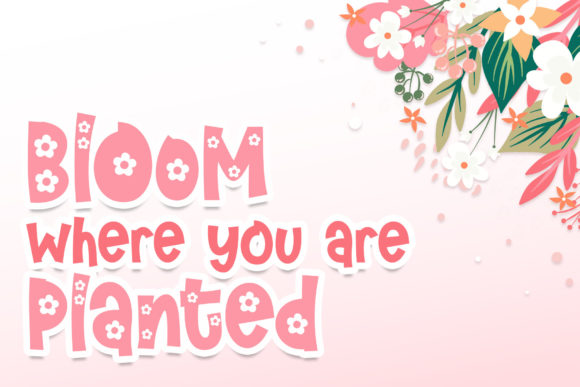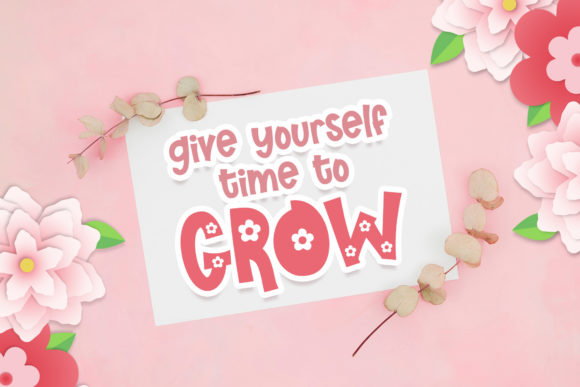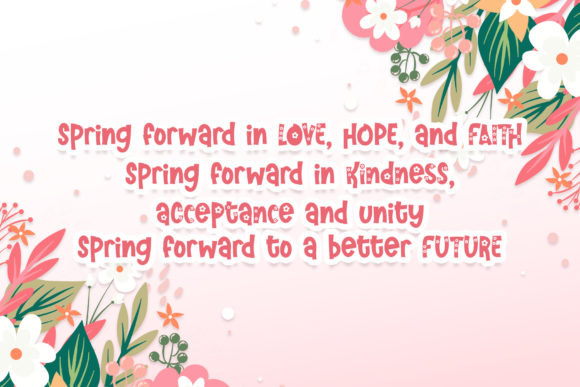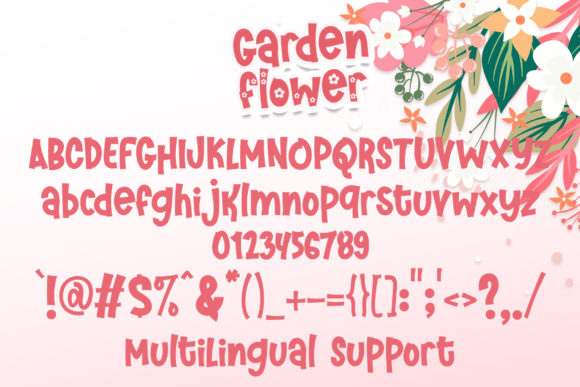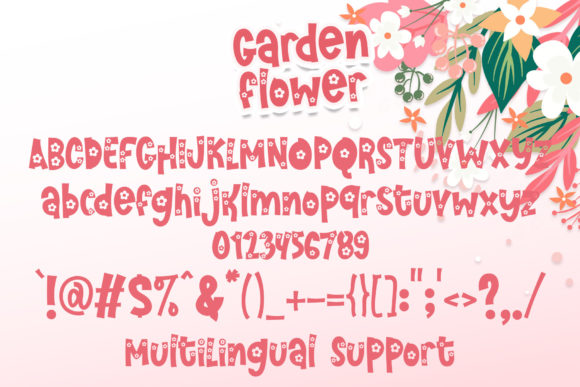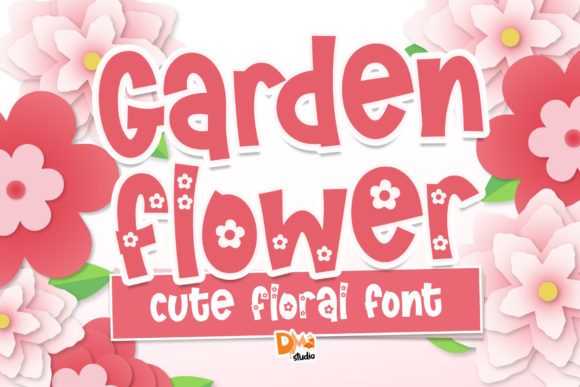
Garden Flower Font: A Chic and Floral Display Font for Your Creative Projects
Are you a designer, crafter, or DIY enthusiast looking for a unique and elegant font to elevate your creative projects? Look no further than the Garden Flower Font, a beautiful and floral display font that’s perfect for a wide range of applications. In this article, we’ll explore the features and benefits of this stunning font, and show you how to make the most of it in your designs.
What is Garden Flower Font?
Garden Flower Font is a chic and floral display font that’s designed to add a touch of elegance and sophistication to your designs. With its original and eye-catching look, this font is perfect for a wide range of crafty ideas, from letterheads and titles to stationery and more. Whether you’re creating a logo, a poster, or a social media graphic, Garden Flower Font is sure to make your design stand out.
Key Features of Garden Flower Font
So, what makes Garden Flower Font so special? Here are just a few of its key features:
- Unique and original design: Garden Flower Font boasts a one-of-a-kind design that’s sure to grab attention and set your designs apart from the crowd.
- Floral and elegant: With its delicate floral motifs and elegant lines, this font is perfect for designs that require a touch of sophistication and refinement.
- Highly versatile: Garden Flower Font can be used for a wide range of applications, from digital designs to print materials.
How to Use Garden Flower Font in Your Designs
Now that we’ve explored the features and benefits of Garden Flower Font, let’s take a look at how to use it in your designs. Here are a few ideas to get you started:
1. Create Stunning Letterheads and Titles
Garden Flower Font is perfect for creating eye-catching letterheads and titles that will make your designs stand out. Simply type out your text, select the font, and adjust the size and color to suit your needs.
2. Design Beautiful Stationery
From greeting cards to invitations, Garden Flower Font is a great choice for designing beautiful stationery. You can use it to create custom designs that are sure to impress.
3. Add a Touch of Elegance to Your Logo
If you’re looking for a unique and elegant font to use in your logo, Garden Flower Font is a great option. Its delicate floral motifs and elegant lines make it perfect for businesses that want to convey a sense of sophistication and refinement.
Tips and Tricks for Getting the Most Out of Garden Flower Font
Here are a few tips and tricks to help you get the most out of Garden Flower Font:
- Experiment with different colors: Garden Flower Font looks great in a range of colors, from soft pastels to bold brights. Don’t be afraid to experiment and find the perfect color to suit your design.
- Use it in combination with other fonts: Garden Flower Font pairs well with a range of other fonts, from simple sans serifs to elegant scripts. Try combining it with other fonts to create a unique and eye-catching design.
- Adjust the size and spacing: To get the most out of Garden Flower Font, experiment with different sizes and spacing. This will help you create a design that’s visually appealing and easy to read.
In conclusion, Garden Flower Font is a beautiful and elegant display font that’s perfect for designers, crafters, and DIY enthusiasts. With its unique and original design, floral motifs, and highly versatile nature, this font is sure to elevate your creative projects and make them stand out from the crowd. Whether you’re creating a logo, a poster, or a social media graphic, Garden Flower Font is a great choice. So why not give it a try and see the difference it can make in your designs?